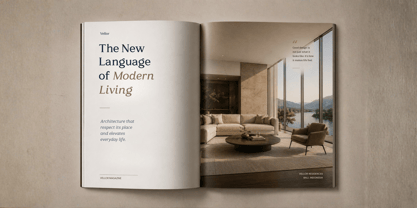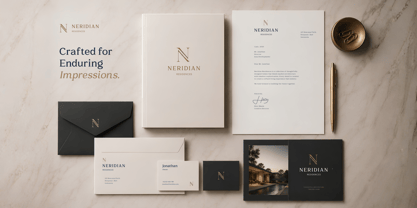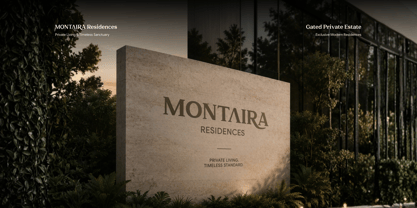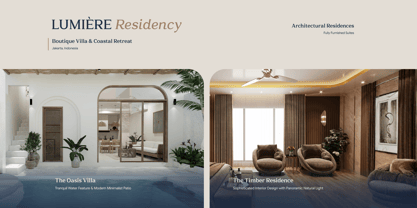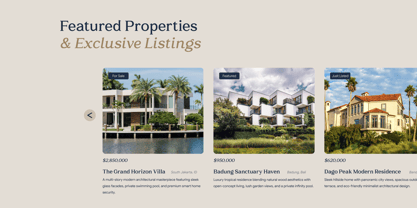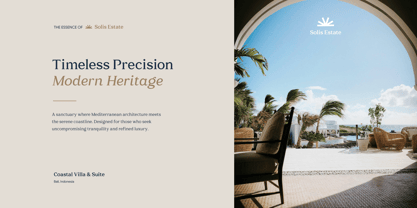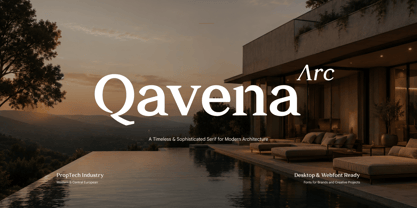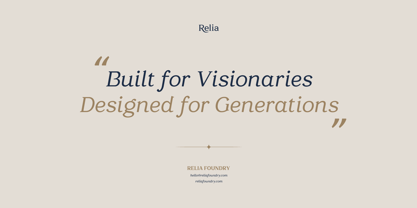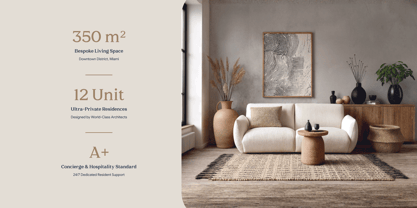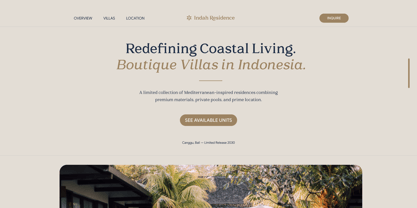
Qavena Arc
The Qavena Arc Font Family was designed by Lita Faolina and published by Product Type. Qavena Arc contains 10 styles and family package options. More about this family
Qavena Arc is a sophisticated luxury serif font designed to bring timeless elegance, refined character, and an organic feel to premium visual identities. Its graceful serif details and balanced proportions make it an excellent choice for real estate branding, luxury property, architecture, residence, hospitality, and high-end lifestyle projects.
Designed for both elegant headlines and polished brand communication, Qavena Arc works beautifully across logos, property brochures, editorial layouts, websites, magazines, packaging, signage, and advertising campaigns. With multiple weights and italics, stylistic alternates, custom swashes, ligatures, and multilingual support, it gives designers the flexibility to create distinctive and professional typography for modern premium brands.
Perfect for real estate agencies, property developers, boutique residences, luxury villas, architectural studios, interior design brands, hotels, resorts, and premium startups, Qavena Arc adds a sophisticated visual presence while maintaining excellent readability and versatility across print and digital applications.